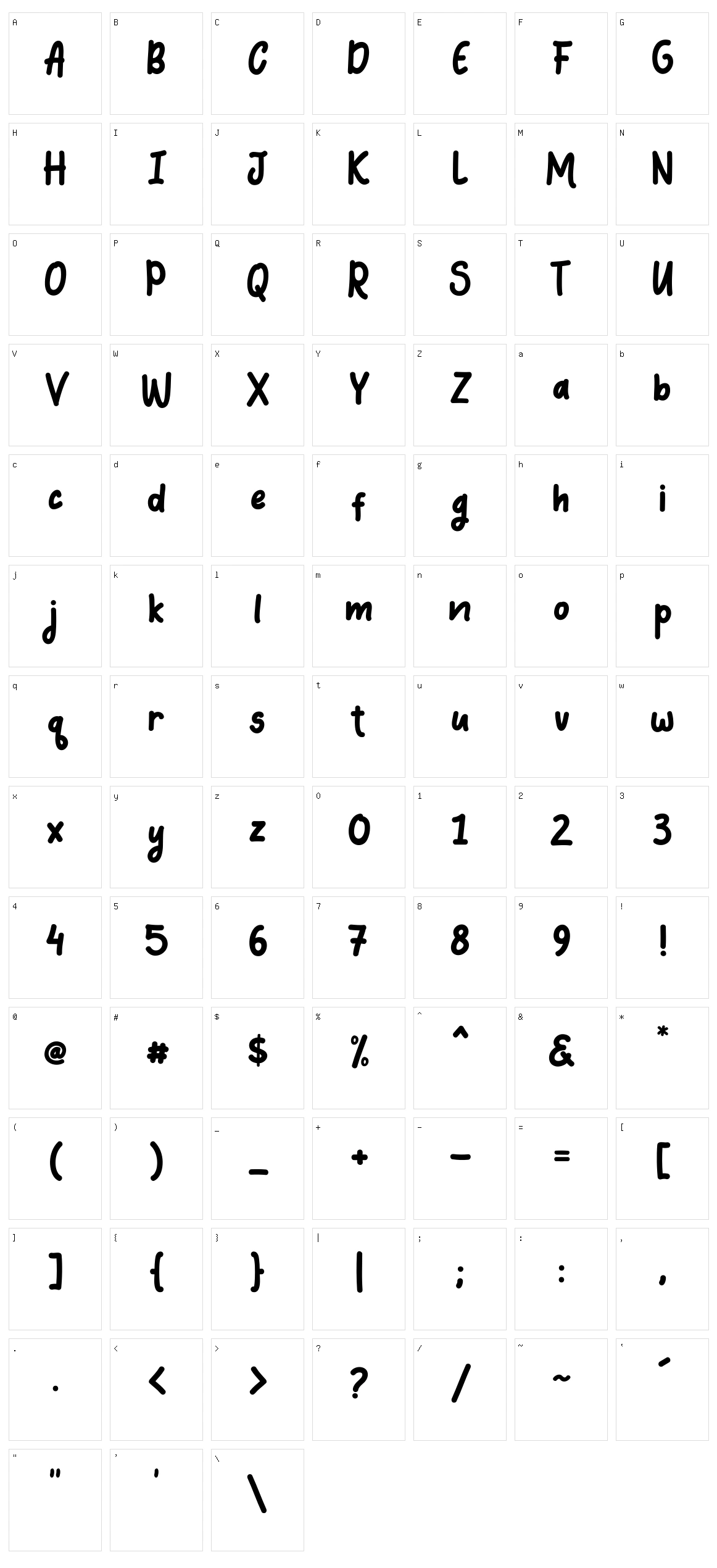
The free font Coquin is carefully designed by Debut Studio, showcasing a thoughtful balance of creativity and usability and falls under the Script font style. When you download the ZIP file, it contains only 24.31 KB of font files, making it lightweight and quick to download. Please review the license details below to understand permitted usage and distribution rights. If license information is not available, we recommend using this font for personal projects only or contacting the author directly for commercial usage permissions.